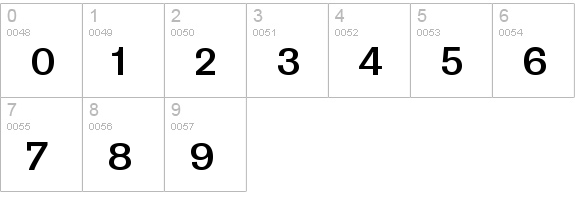
Supria Sans Medium is a balanced, medium-weight variant in the Supria typeface family \xE2\x80\x94 well suited to sub-headlines, navigation, and balanced editorial work.
Supria Sans Medium font is a versatile and modern typeface that strikes the perfect balance between professionalism and style. Its medium weight makes it ideal for various design projects, from branding to editorial layouts. With its clean lines and balanced proportions, Supria Sans Medium exudes a sense of sophistication and elegance. One of the best things about Supria Sans Medium font is that it is free to download at FontsMarket.com. This means that you can easily access this high-quality typeface without any cost, making it a valuable addition to your font library. Whether you are working on a print design, web project, or any other creative endeavor, Supria Sans Medium font is sure to elevate your work with its modern and refined aesthetic. Don't miss out on the opportunity to enhance your designs with the timeless appeal of Supria Sans Medium font. Download it for free today at FontsMarket.com and start creating stunning visuals that stand out from the rest.